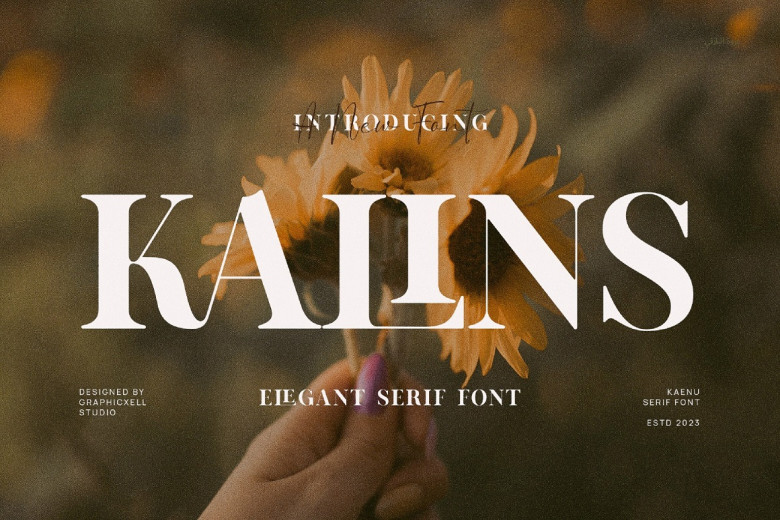
Kalins Font
Kalins Font is an elegant serif typeface with modern appeal, perfect for branding, logos, wedding designs and social media posts as well as labelling packages of products or designing, photography, watermarks, invitations or stationery design with ease! PUA encoded, it allows easy access to its amazing characters and ligatures!
Kalins Serif Font